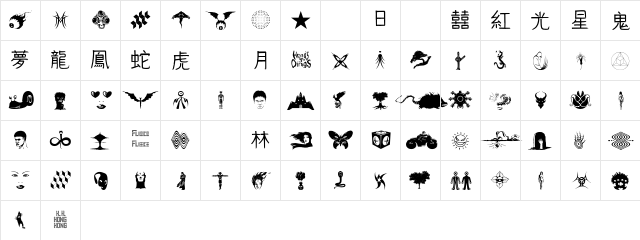
Hong's 3 Dings Regular
Design Context for Hong's 3 Dings Typeface
Hong's 3 Dings is a composed and adaptable typeface that performs quietly and consistently across a wide range of design contexts.